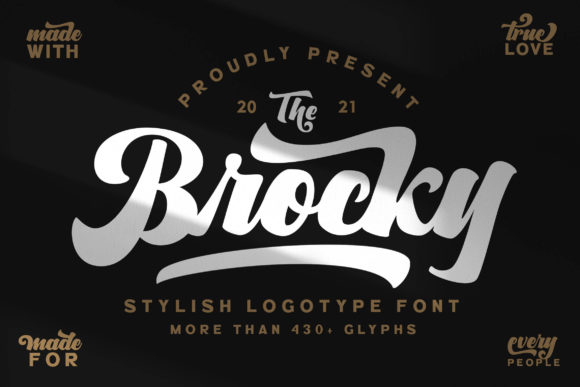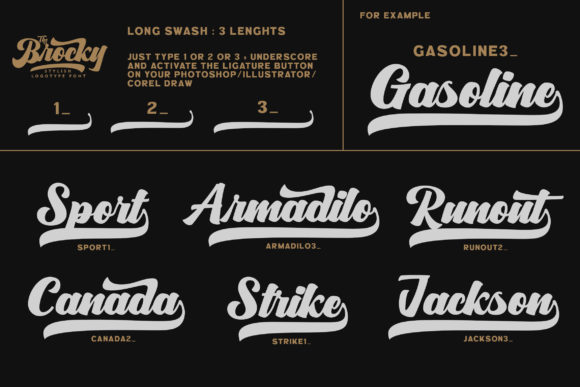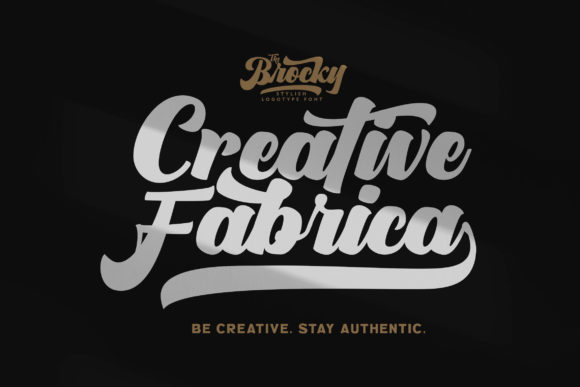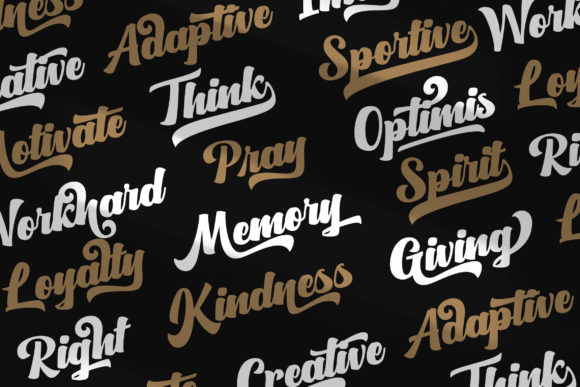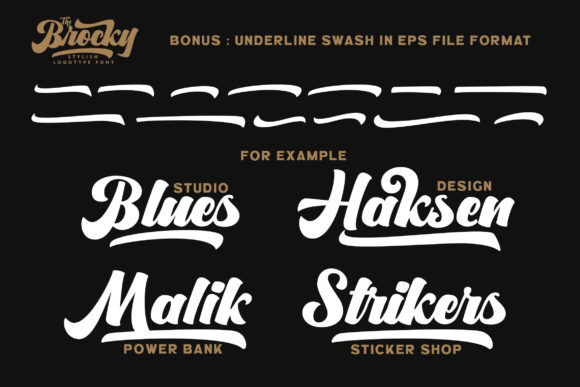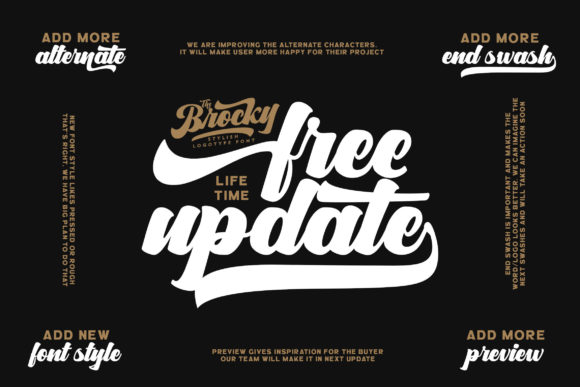
About The Brocky Font
The Brocky is a gorgeous and bold duo font (sans serif and handwritten), crafted to give your headlines and logotype projects a retro touch. This font reads as strong, confident, and dynamic and can add tons of nostalgic character to your designs.
The Brocky is PUA encoded which means you can access all of the glyphs and swashes with ease!Â